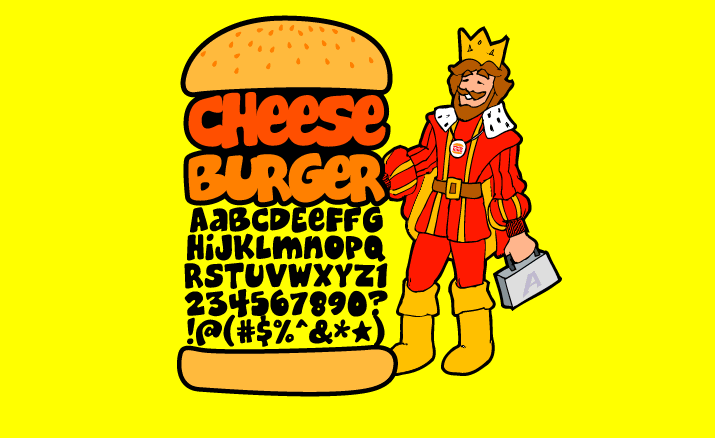
About Cheeseburger
Take a chomp out of this font! It\’s fun, it\’s whimsical, it\’s bubbly, just like you!! If your design needs require 1970\’s cartoon fonts, then I think you and I both know what you should be doing right now. (Hint: Downloading this font!)